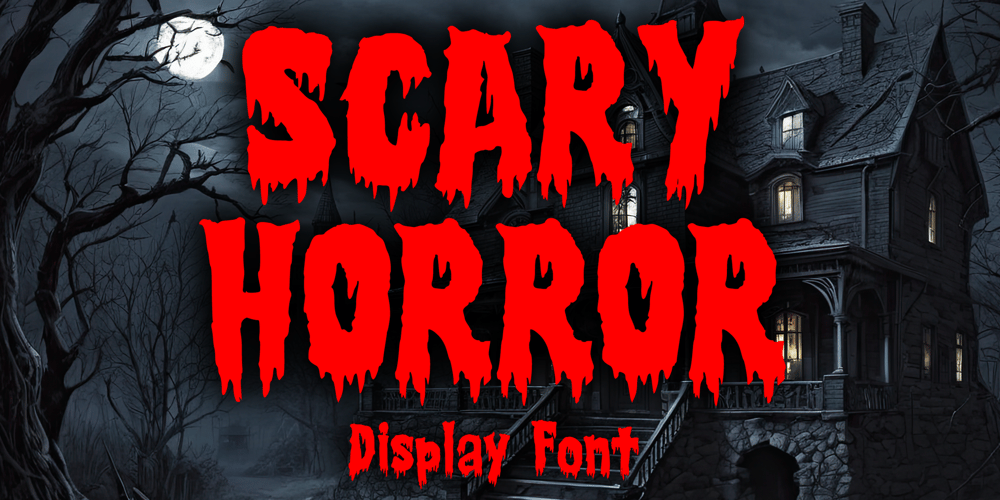
Scary Horror
Scary Horror font
Scary Horror Font Family was designed by Gabriel Valentinus and published by Mvmet. Scary Horror contains 1 styles and family package options. Scary Horror is a cool ink drips font inspired by vintage horror movies, horror comics, and Metal music. It will be perfect for your horror and Halloween themed needs! You can use it for anything ranging from merchandise like t-shirts and clothing, for your scary book designs, Halloween party needs, greeting cards, stickers, posters, banners, or anything that needs a horror touch.